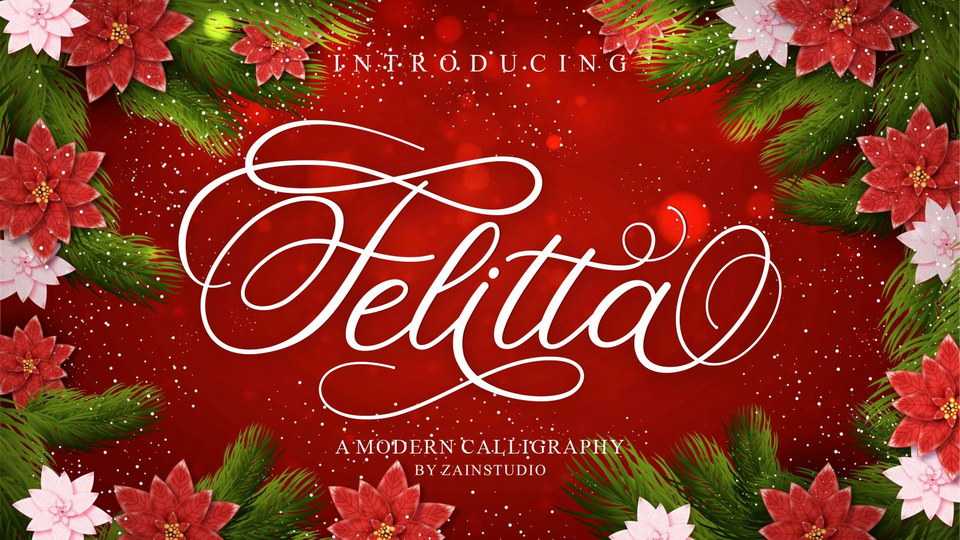
Download Felitta font, a modern calligraphy script that feels incredibly elegant and flowing. Felitta looks stunning on wedding invitations, quotes, greeting cards, logos and every other design which needs a handwritten touch.
Designer: ZainStudio